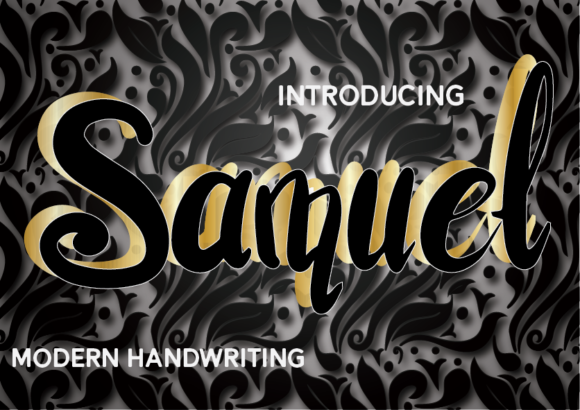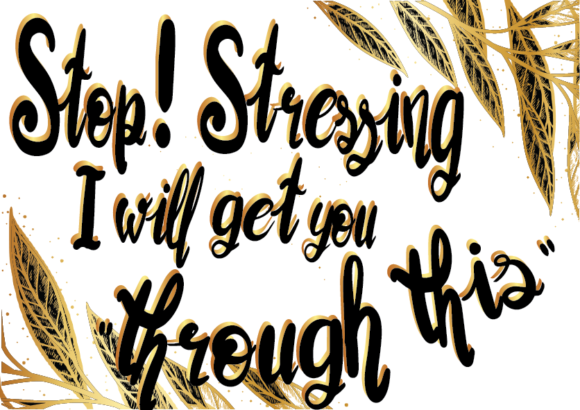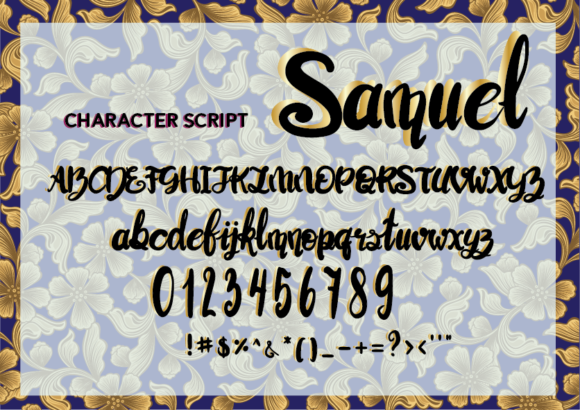
Samuel Font
About Samuel Font
Samuel is inspired by classic typography and brings its own unique style to any design project. This fantastic handwritten font is best suited for headlines of all sizes, as well as for blocks of text that have both maximum and minimum variations. Whether it’s for web, print, moving images or anything else – Samuel will look spectacular.